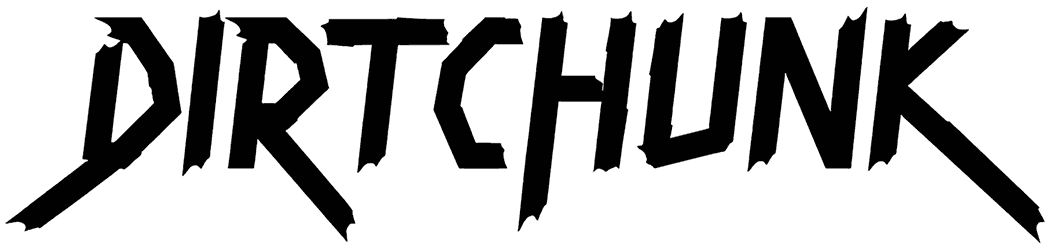
Dirtchunk Font
If you wish to bring a futuristic vibe to your typography but keep it charming at the same time, then we suggest you try Dirtchunk. This Cyberpunk font with a bold but messy style creates a serious but interesting effect in readers’ minds which makes it awesome for flyers, action movies, and series.
You find lacking lowercase and numbers in this collection but this doesn’t stop you from creating brilliant artworks. Check us out at RB.